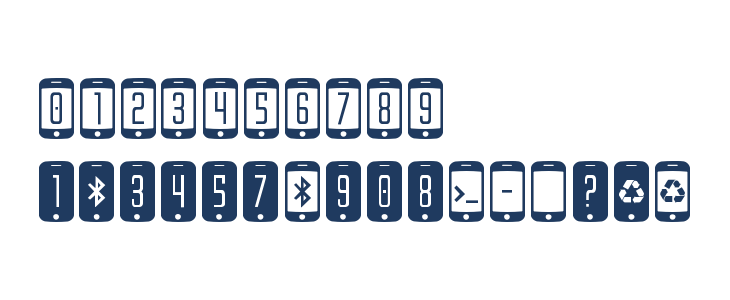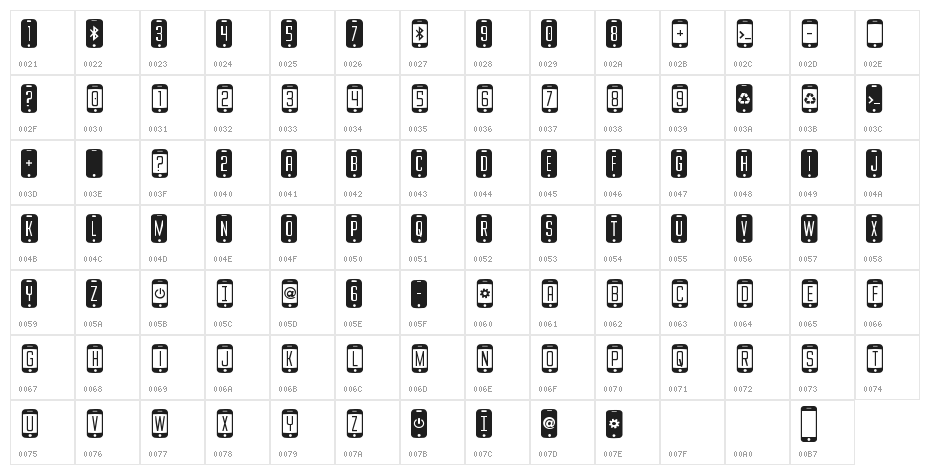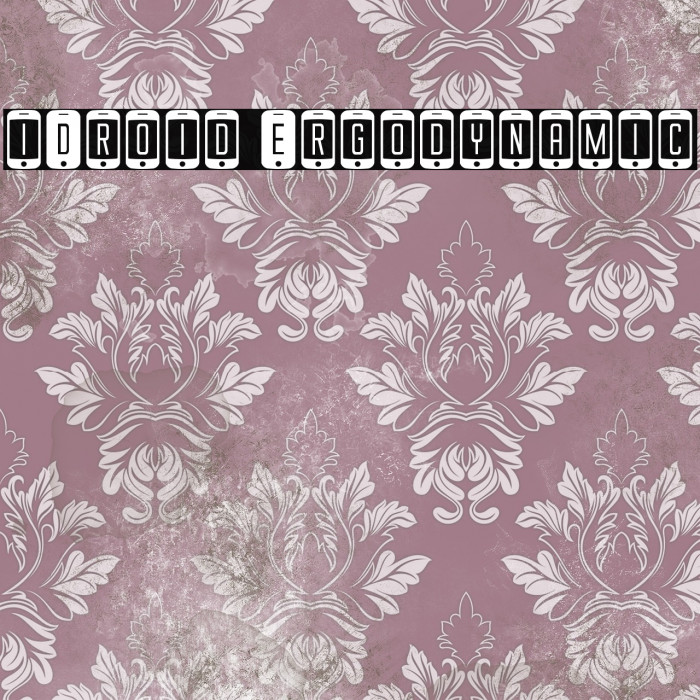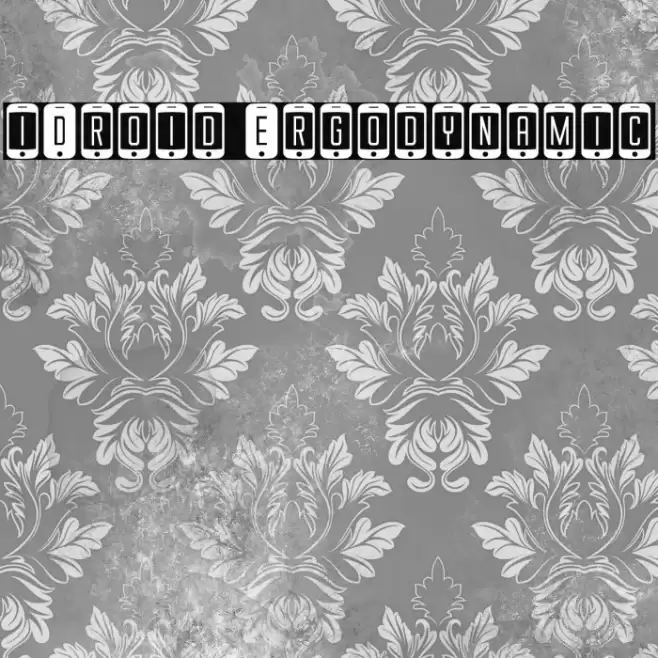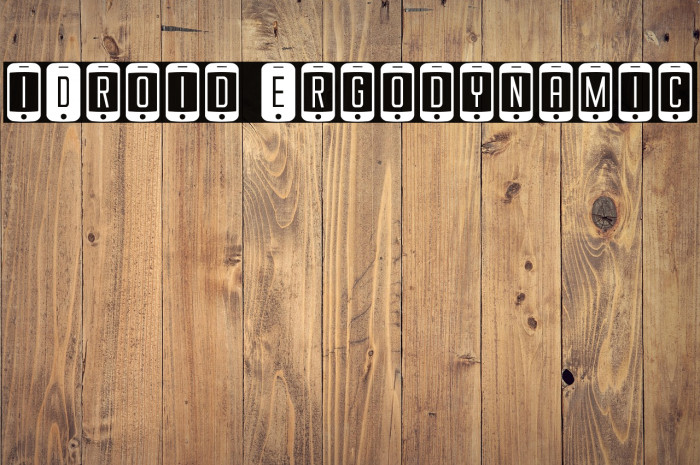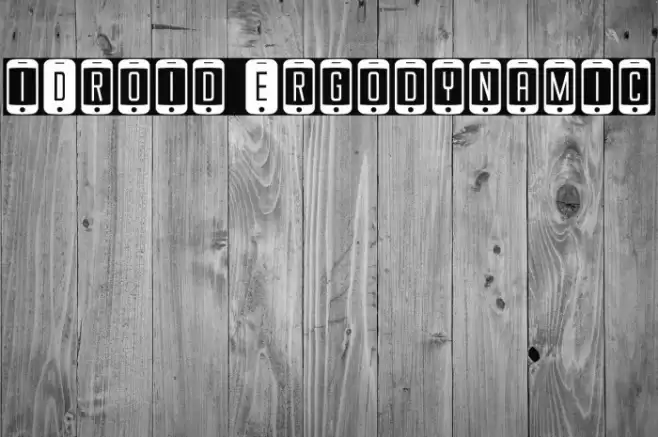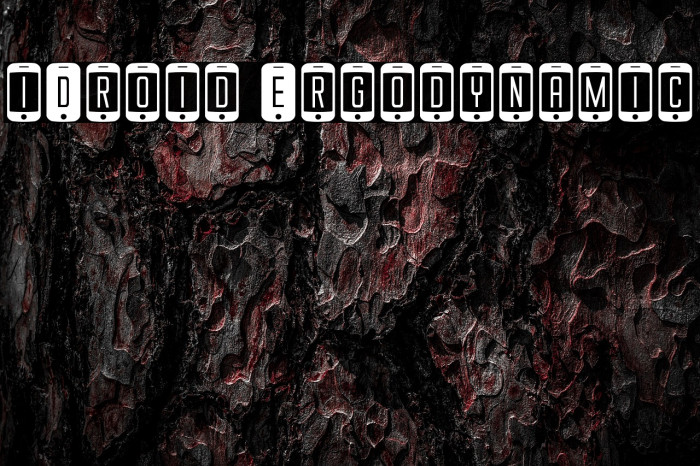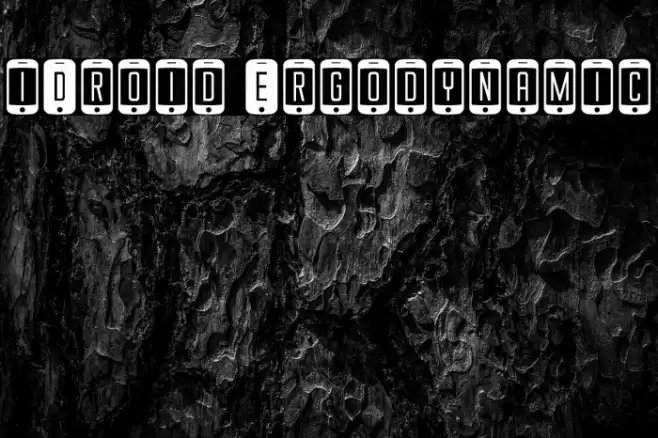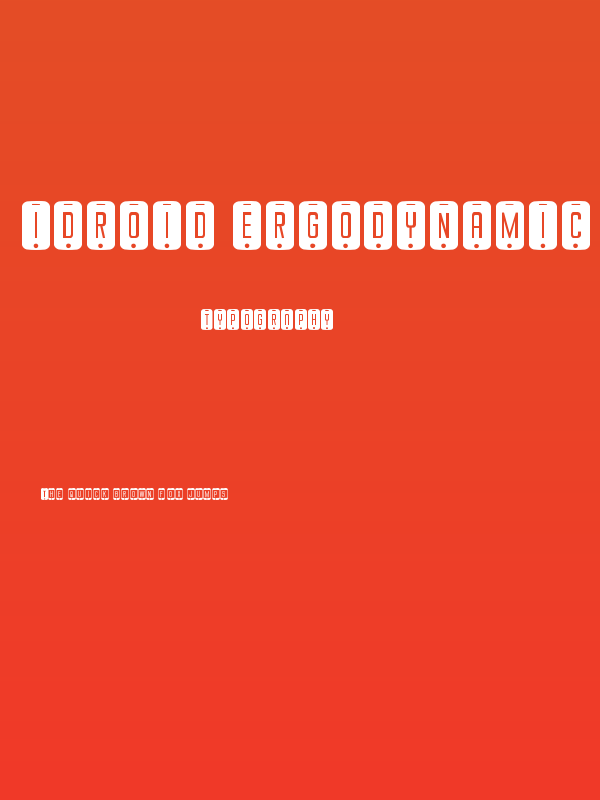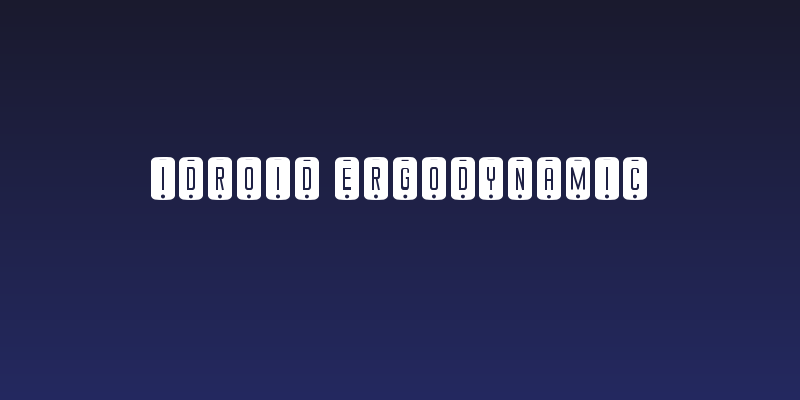
iDroid Ergodynamic Font
iDroid Ergodynamic Description
This font features a unique design where each character is encapsulated within a smartphone-like shape, complete with a rounded rectangle and a circular button at the bottom. The letters and numbers are bold and geometric, giving a modern and tech-inspired feel. The uppercase and lowercase letters are uniform in style, maintaining a consistent look throughout. The numbers follow the same design principle, ensuring a cohesive appearance. Special characters are also included, each fitting seamlessly into the overall theme. The font's distinct style makes it ideal for projects that require a futuristic or digital aesthetic.
Use CaseLogos, Headlines, Digital Media
Proposed ProjectsIdeal for tech-related branding, app design, digital marketing materials, and futuristic-themed projects.